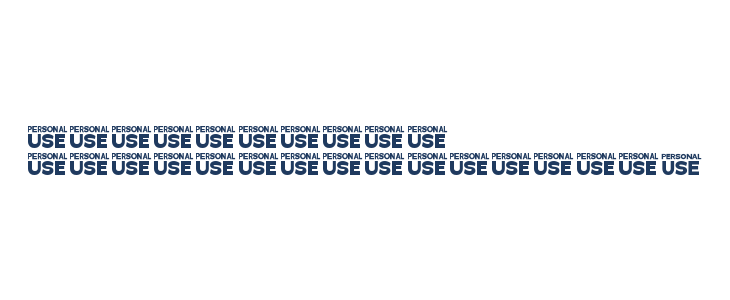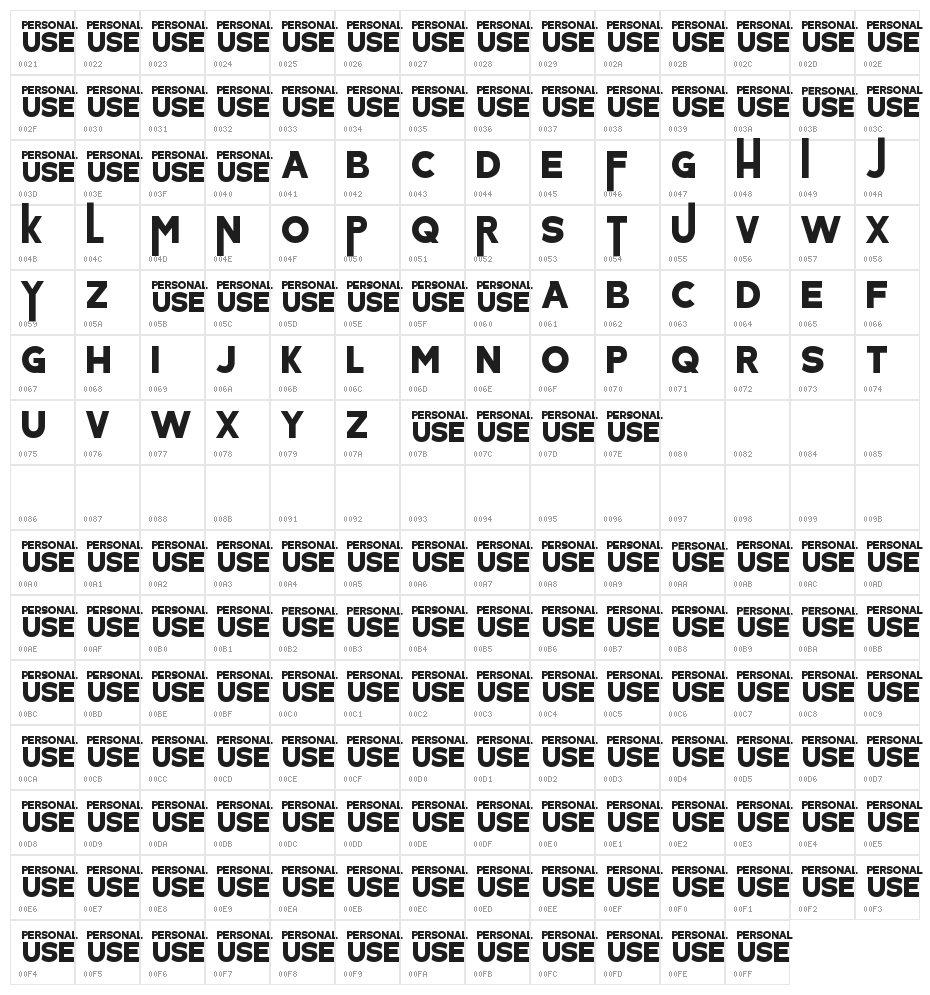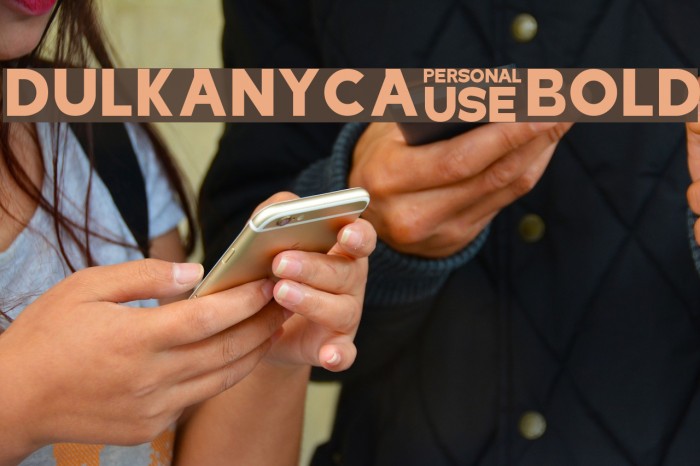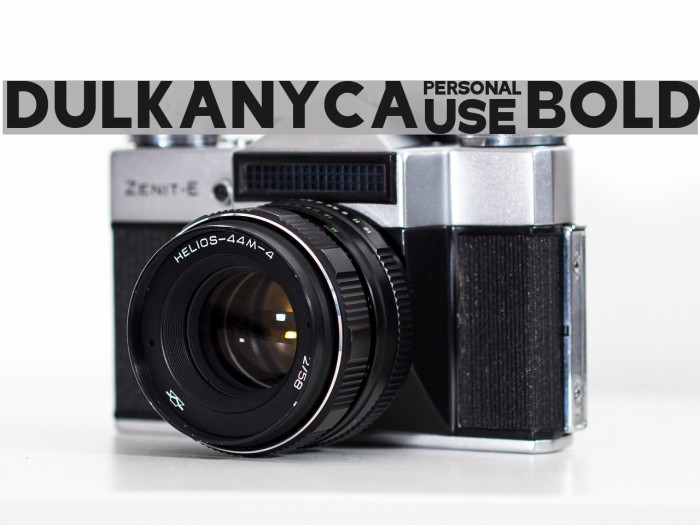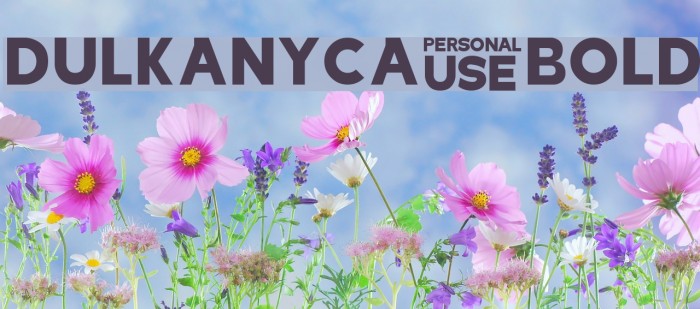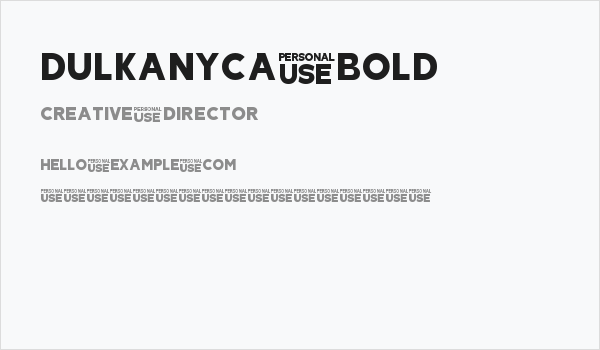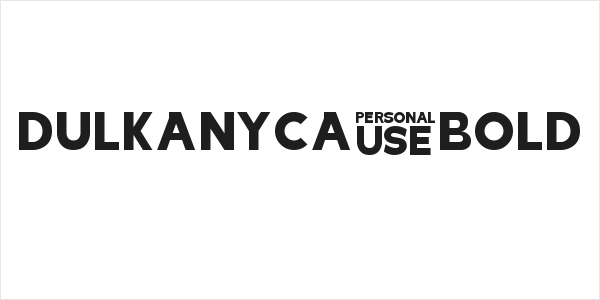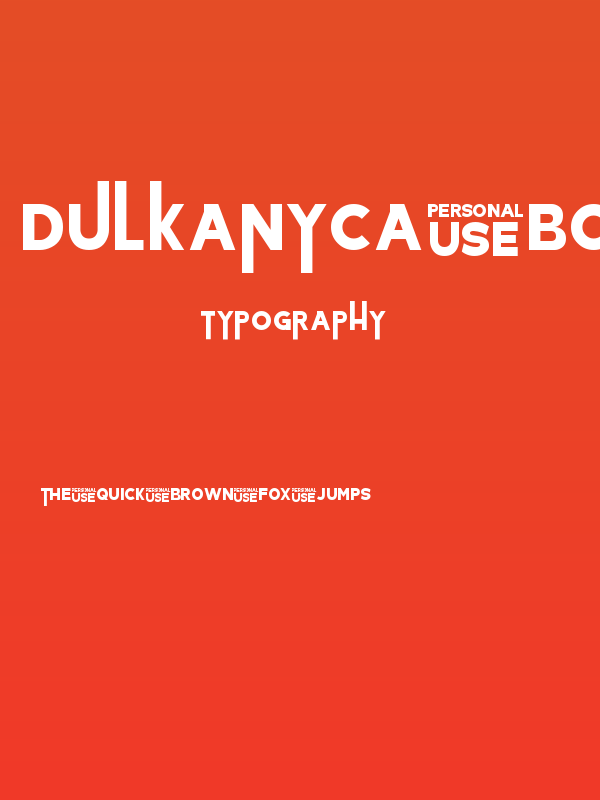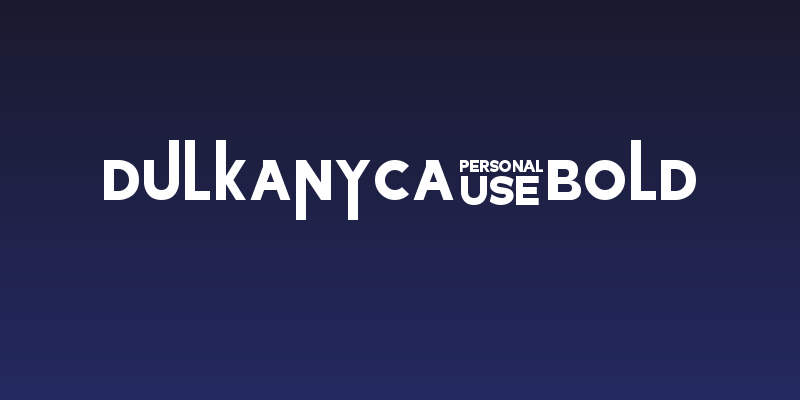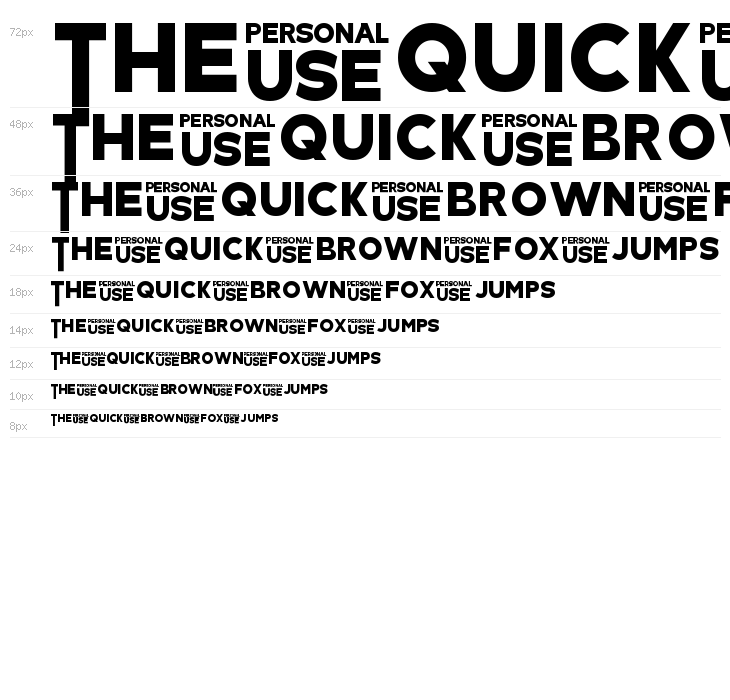
Dulkanyca Bold Font
Dulkanyca Bold Description
This font features a bold and assertive design with strong geometric shapes and clean lines. The uppercase letters are characterized by their uniform height and width, creating a sense of stability and balance. The lowercase letters maintain the same boldness, ensuring readability and consistency across different text sizes. The numbers are designed to match the boldness of the letters, making them stand out prominently. Special characters are crafted with the same attention to detail, ensuring they integrate seamlessly with the rest of the font. This font's overall appearance is modern and impactful, making it suitable for a variety of design applications.
| Proposed Projects | Ideal for branding, headlines, posters, and any design requiring a strong visual impact. |